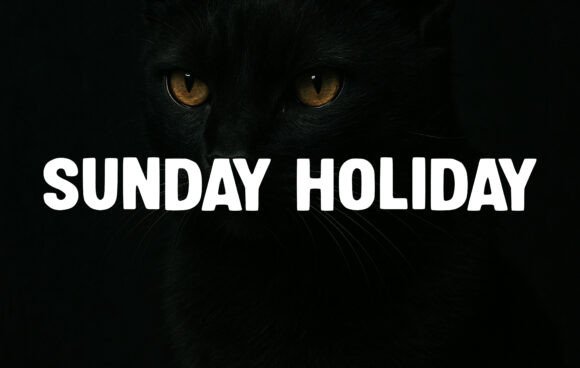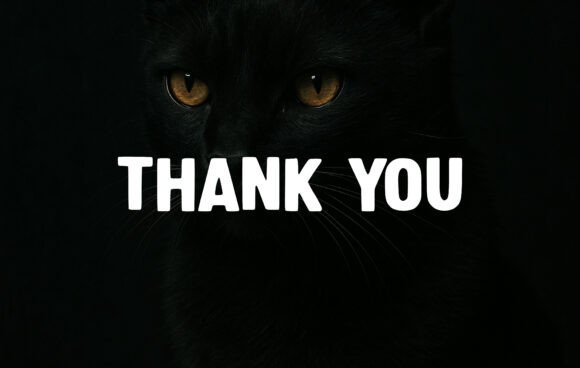
Introducing Frost Font: The Perfect Blend of Modernity and Friendliness
In the world of typography, fonts play a crucial role in conveying the personality and tone of a brand. For designers and crafters, finding the right font can be a daunting task. However, if you’re looking for a bold, modern sans-serif display font that exudes a playful and friendly vibe, look no further than Frost Font. In this article, we’ll dive into the features and benefits of Frost Font, and explore why it’s an excellent choice for your next design project.
The Design Philosophy of Frost Font
Frost Font is a bold, modern sans-serif display font that boasts a unique personality. Its thick, rounded letterforms and slightly softened edges give it a cozy yet confident demeanor. The design philosophy behind Frost Font is to create a font that stands out in both digital and print applications while maintaining legibility even at large sizes. This makes it an ideal choice for headlines, logos, packaging, and eye-catching social media posts.
Key Features of Frost Font
- Bold and Modern: Frost Font is a bold, modern sans-serif display font that’s perfect for making a statement.
- Playful and Friendly: The font’s playful and friendly twist makes it an excellent choice for brands that want to convey a approachable and charming personality.
- Thick, Rounded Letterforms: The thick, rounded letterforms of Frost Font give it a cozy and confident personality.
- Slightly Softened Edges: The slightly softened edges of the font add a touch of warmth and approachability.
- Legible at Large Sizes: Frost Font maintains legibility even at large sizes, making it perfect for headlines, logos, and packaging.
The Benefits of Using Frost Font
Frost Font offers a range of benefits for designers and crafters. Its subtle curves and slightly condensed proportions add visual rhythm and approachability, making it an excellent choice for brands that want to balance impact with charm. Additionally, the font’s bold and modern design ensures that it will stand out in both digital and print applications.
Who is Frost Font Suitable For?
Frost Font is perfect for brands that want to convey a modern and friendly personality. It’s an excellent choice for:
- Headlines and Logos: Frost Font is ideal for creating bold and eye-catching headlines and logos.
- Packaging: The font’s bold and modern design makes it perfect for packaging design.
- Social Media Posts: Frost Font is an excellent choice for creating eye-catching social media posts that will grab the attention of your audience.
- Branding: The font’s playful and friendly twist makes it an excellent choice for brands that want to convey a approachable and charming personality.
Tips for Using Frost Font Effectively
To get the most out of Frost Font, here are a few tips to keep in mind:
- Use it Boldly: Frost Font is a bold font, so don’t be afraid to use it boldly. It’s perfect for making a statement and grabbing the attention of your audience.
- Pair it with Other Fonts: Frost Font pairs well with other fonts, so don’t be afraid to experiment with different combinations.
- Use it in Digital and Print Applications: Frost Font is designed to work well in both digital and print applications, so don’t be afraid to use it across different mediums.
In conclusion, Frost Font is a bold, modern sans-serif display font that’s perfect for designers and crafters looking for a playful and friendly vibe. Its thick, rounded letterforms and slightly softened edges give it a cozy yet confident personality, making it an excellent choice for headlines, logos, packaging, and eye-catching social media posts. With its subtle curves and slightly condensed proportions, Frost Font adds visual rhythm and approachability, making it perfect for brands that want to balance impact with charm.